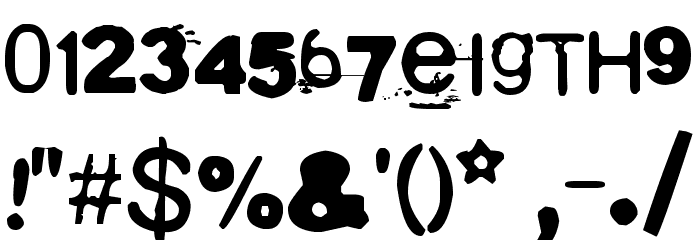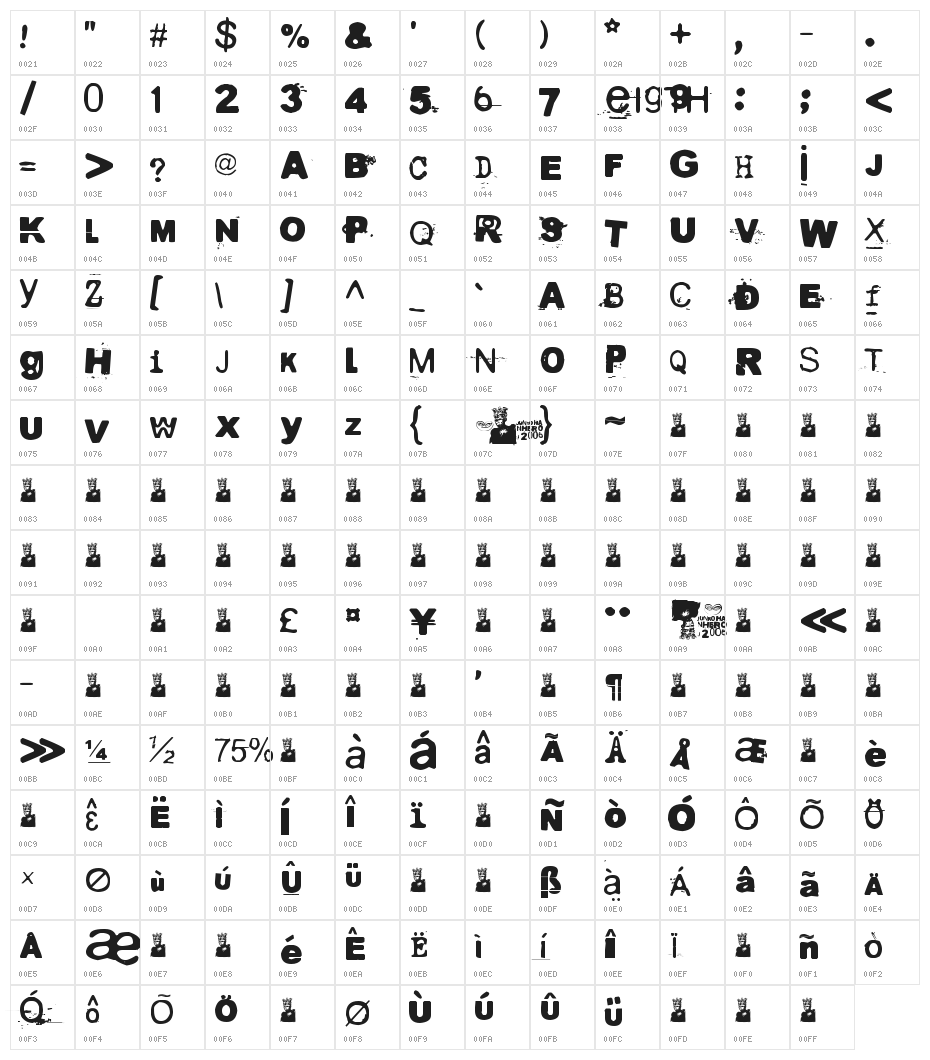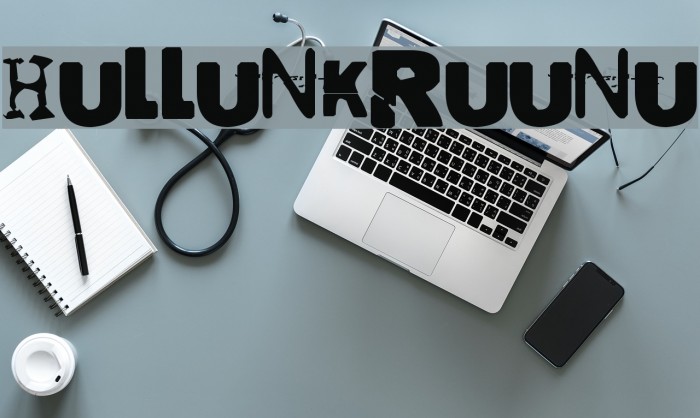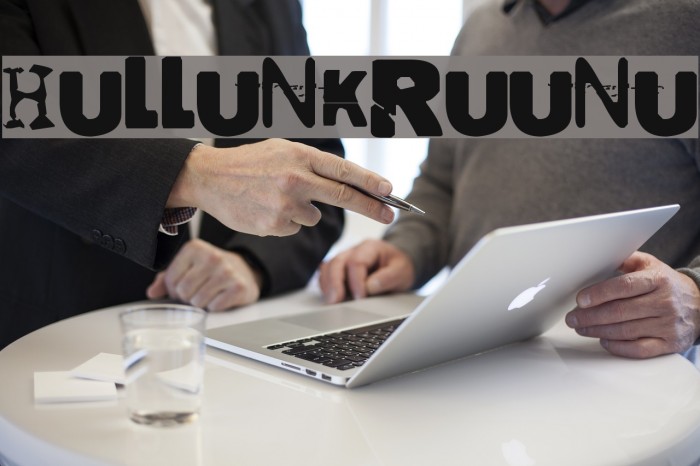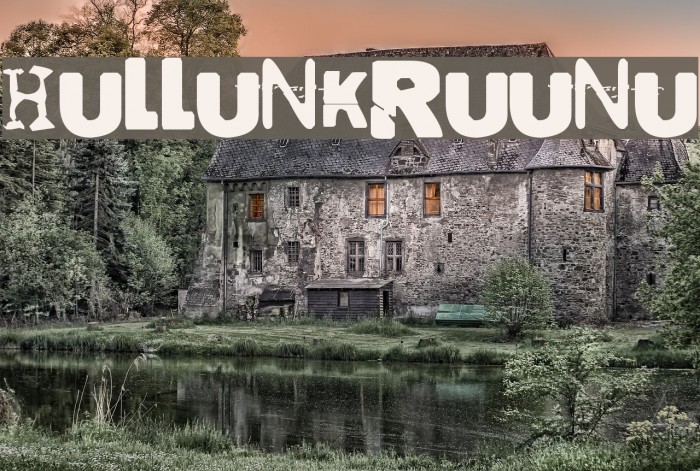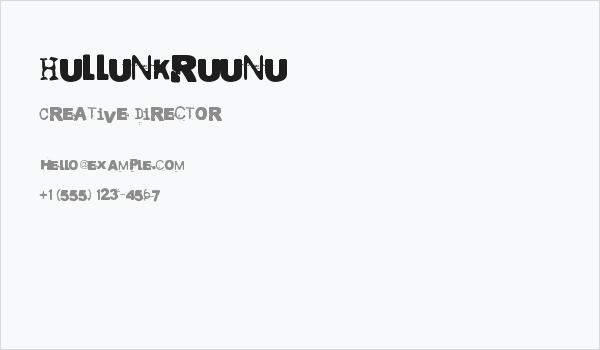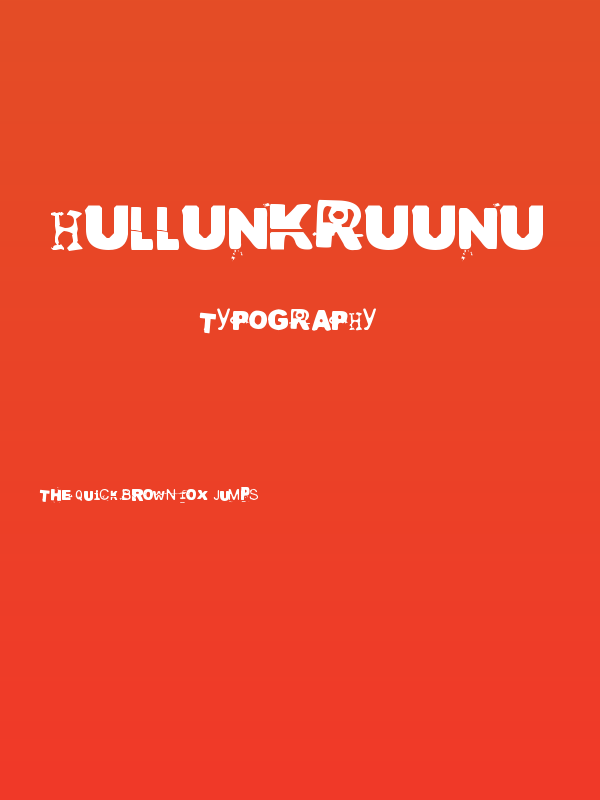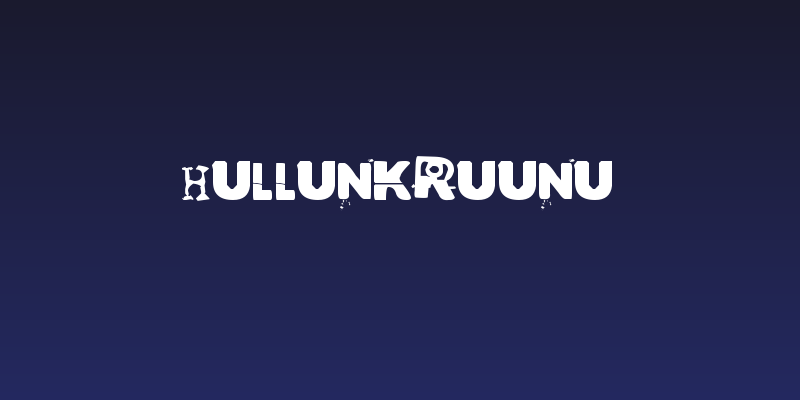
Hullunkruunu Font
Hullunkruunu Description
This font features a distressed and grungy style, characterized by irregular edges and a textured appearance that gives it a worn and rugged look. The uppercase and lowercase letters, as well as numbers and special characters, exhibit a playful yet chaotic design, making each character unique. The boldness of the letters is consistent, providing a strong visual impact. The font's artistic imperfections and rough texture make it ideal for projects that require a raw, edgy aesthetic. Its distinctive style can add a sense of rebellion and creativity to any design.
| Overall Style | Grunge, Edgy, Artistic |
| Use Case | Logos, Posters, Album Covers |
| Proposed Projects | Ideal for music album covers, street art-inspired designs, edgy posters, and creative branding projects. |